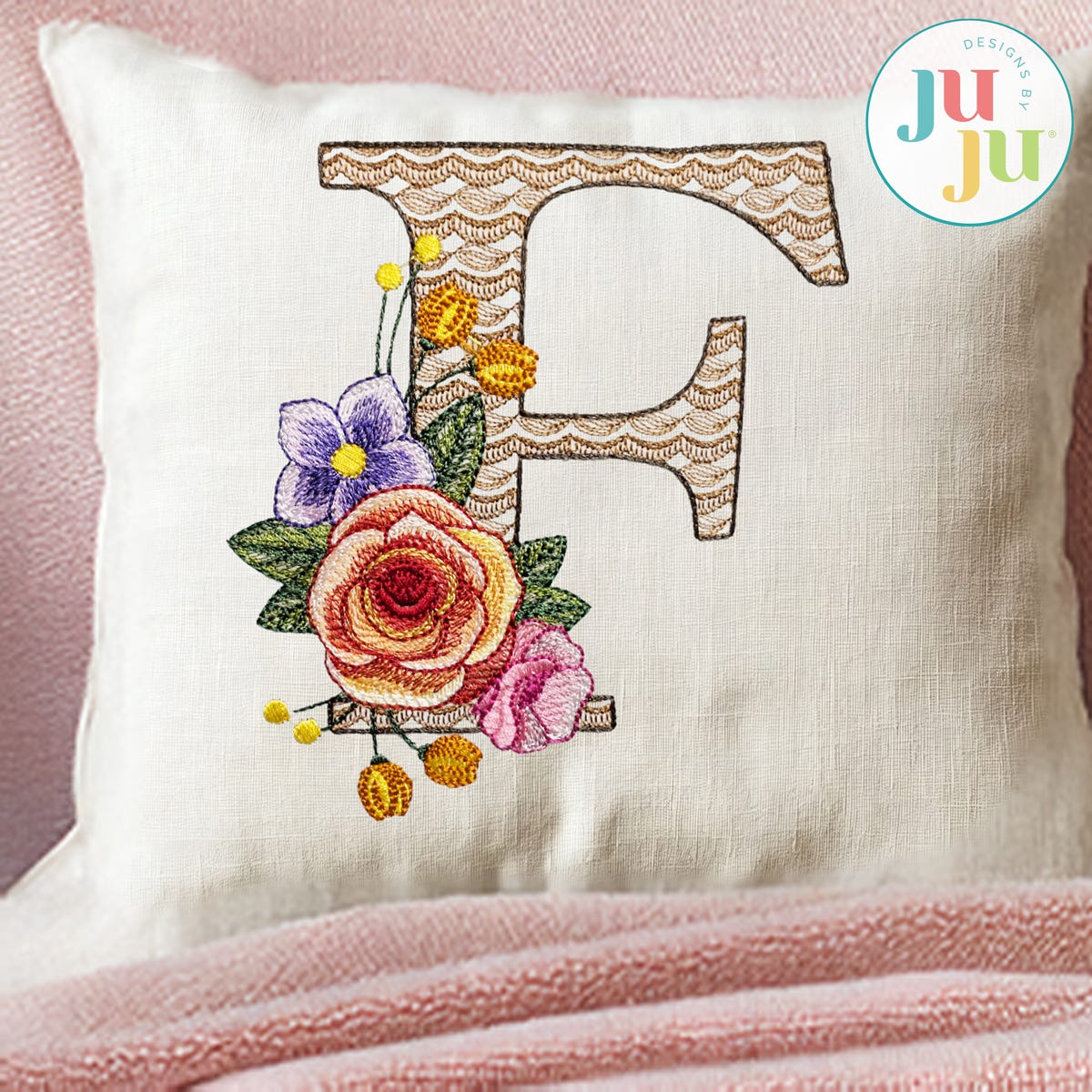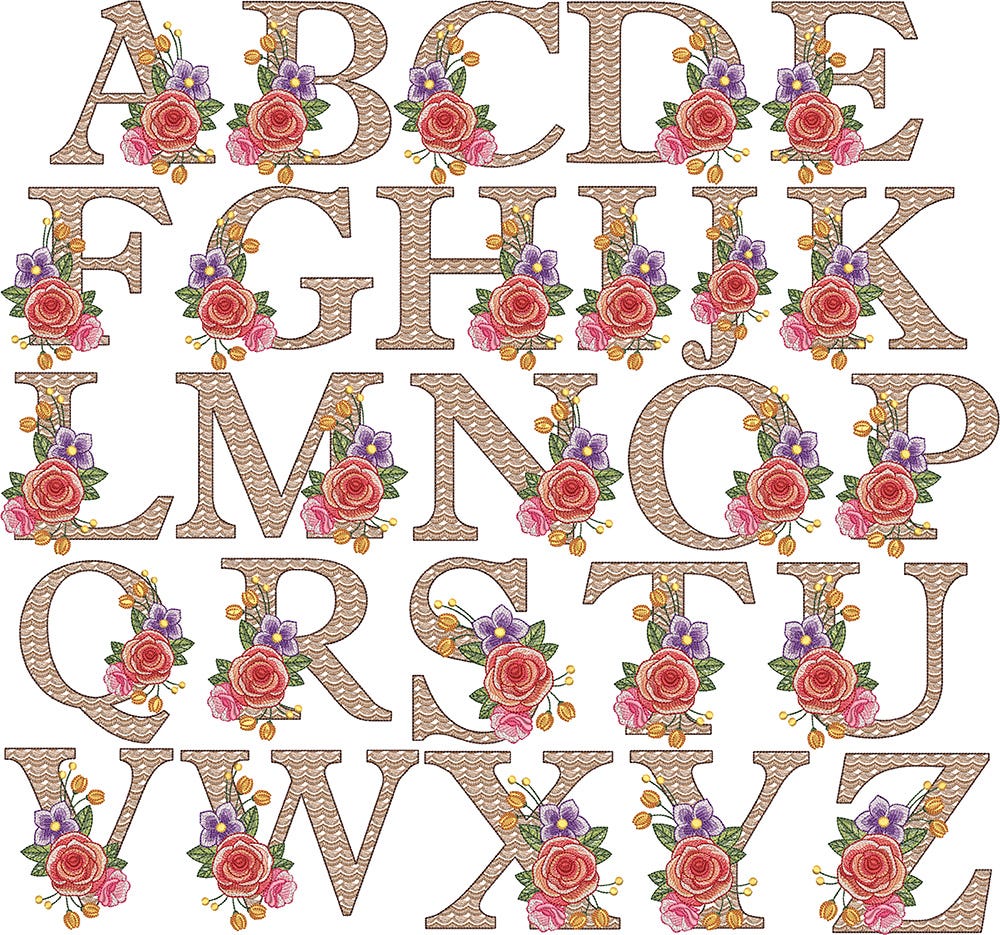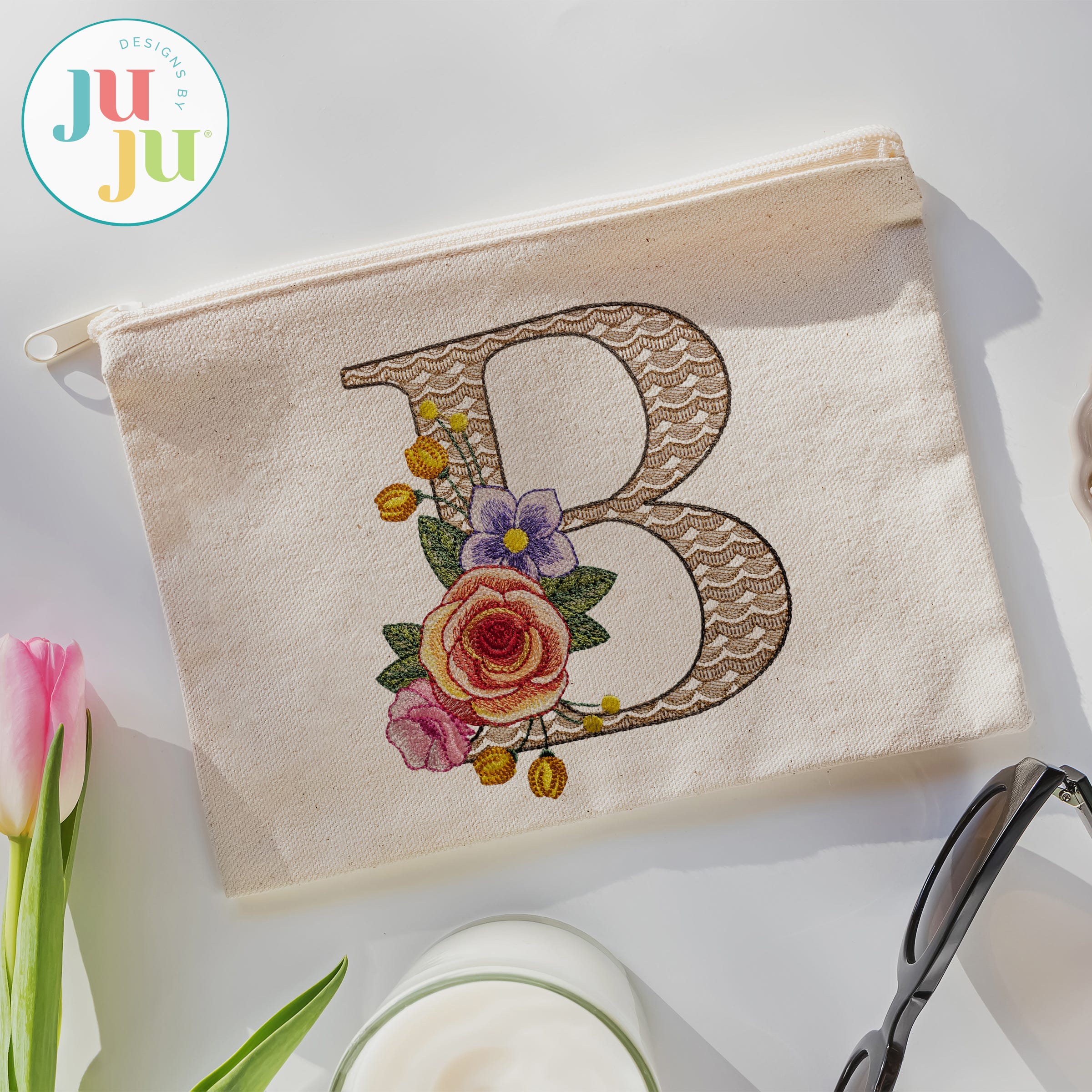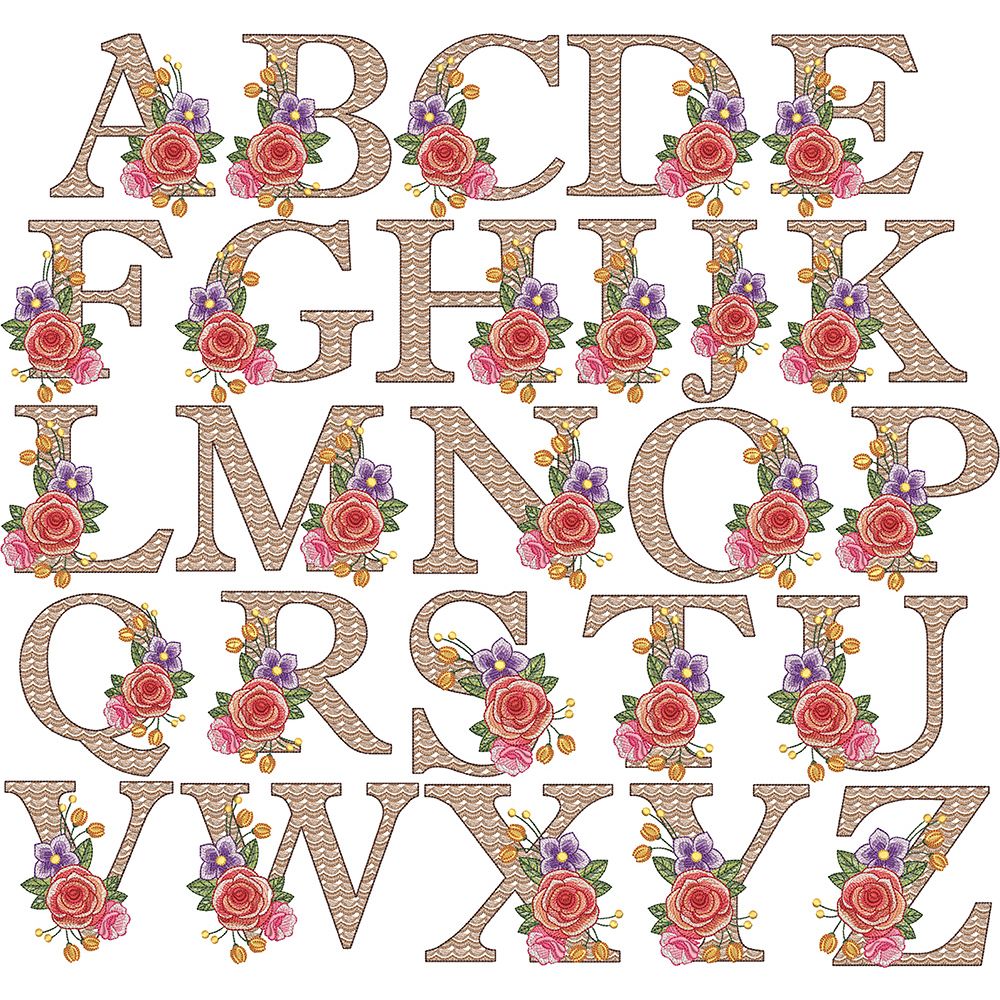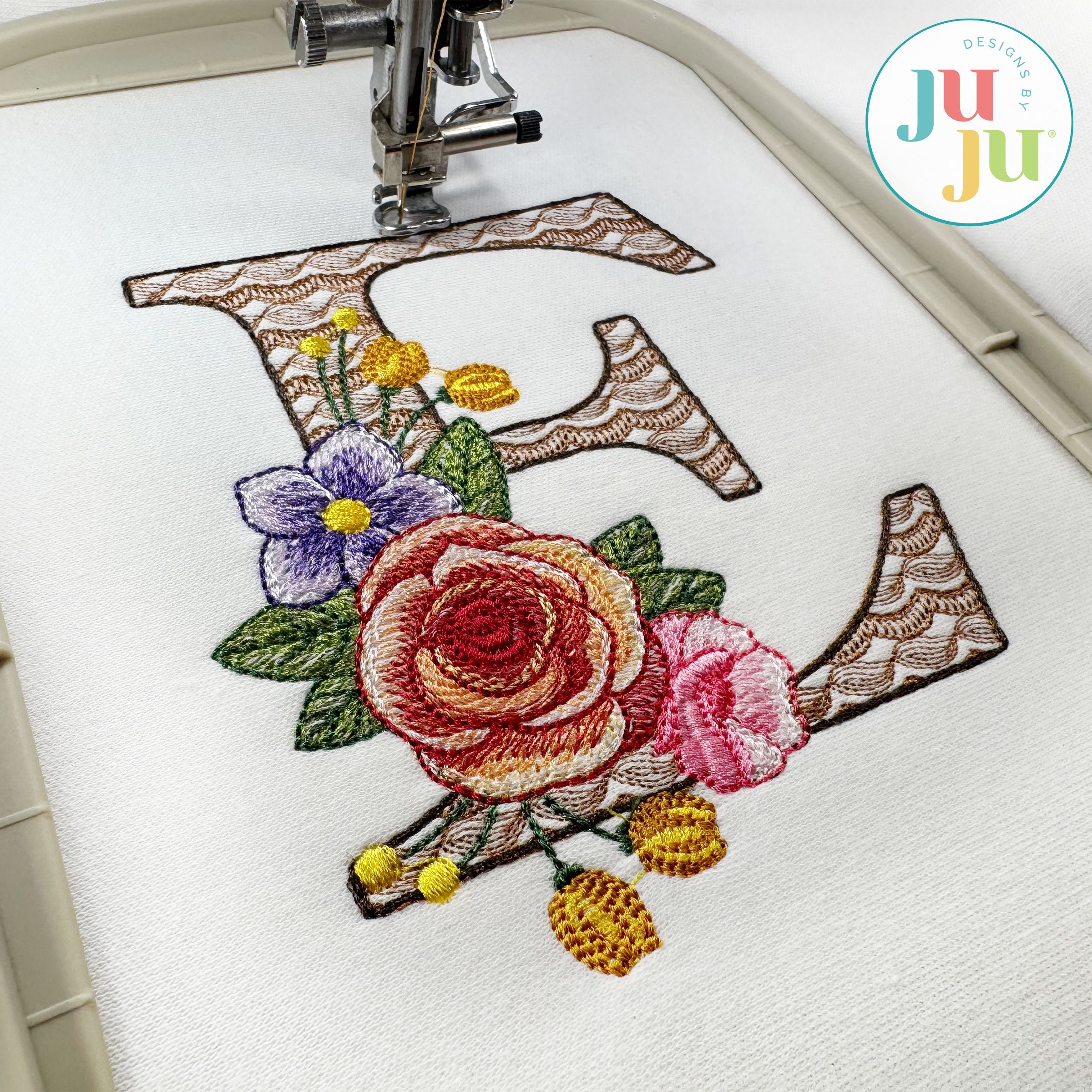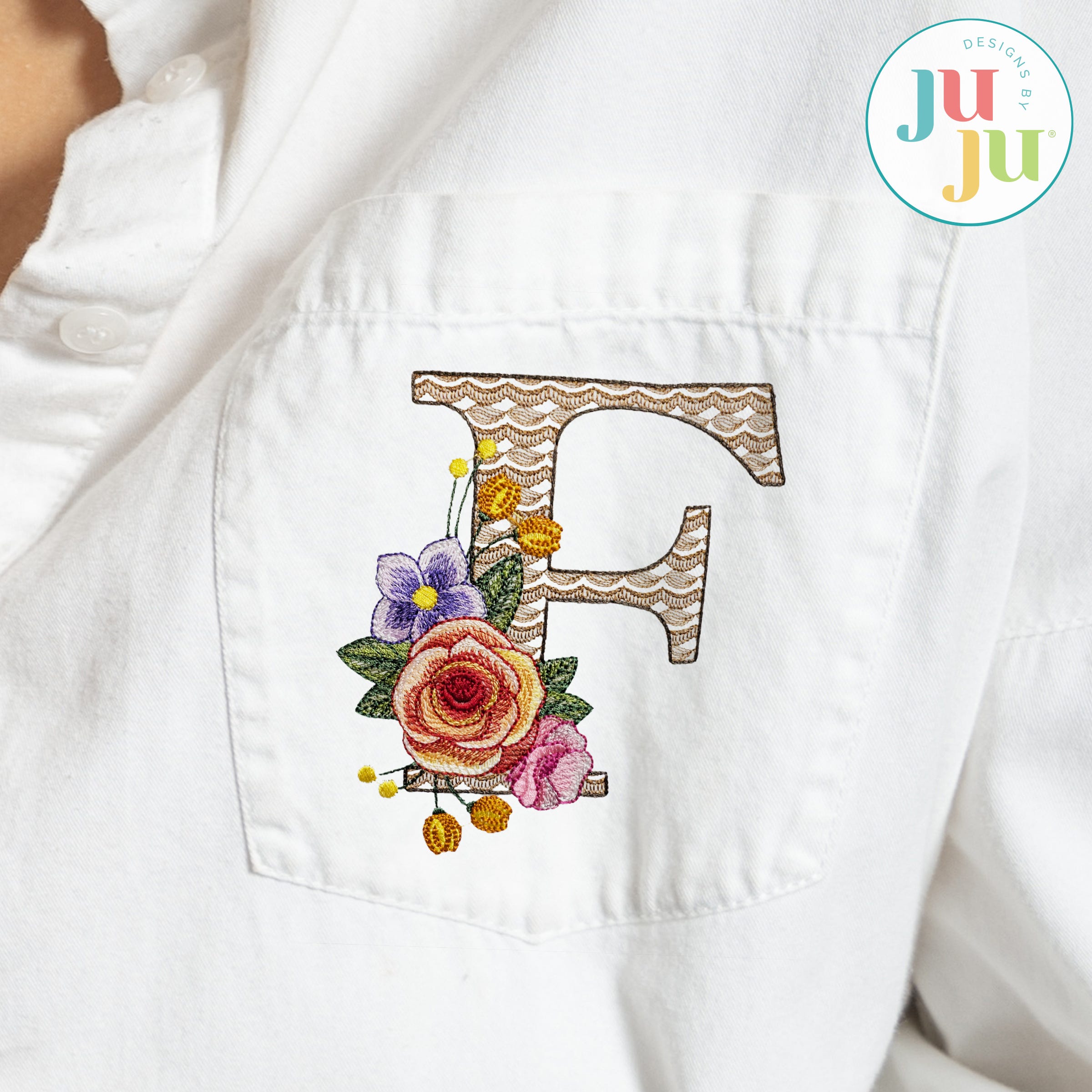
Nadia Motif Filled Monogram Embroidery Font
Add a touch of elegance to your project with our Nadia Monogram!
The motif fill stitch letter is topped with embroidered flowers. The flowers feature multiple color layers of lighter density fill to create a blended, variegated, textured look.